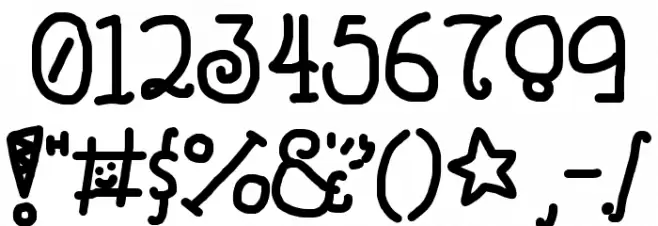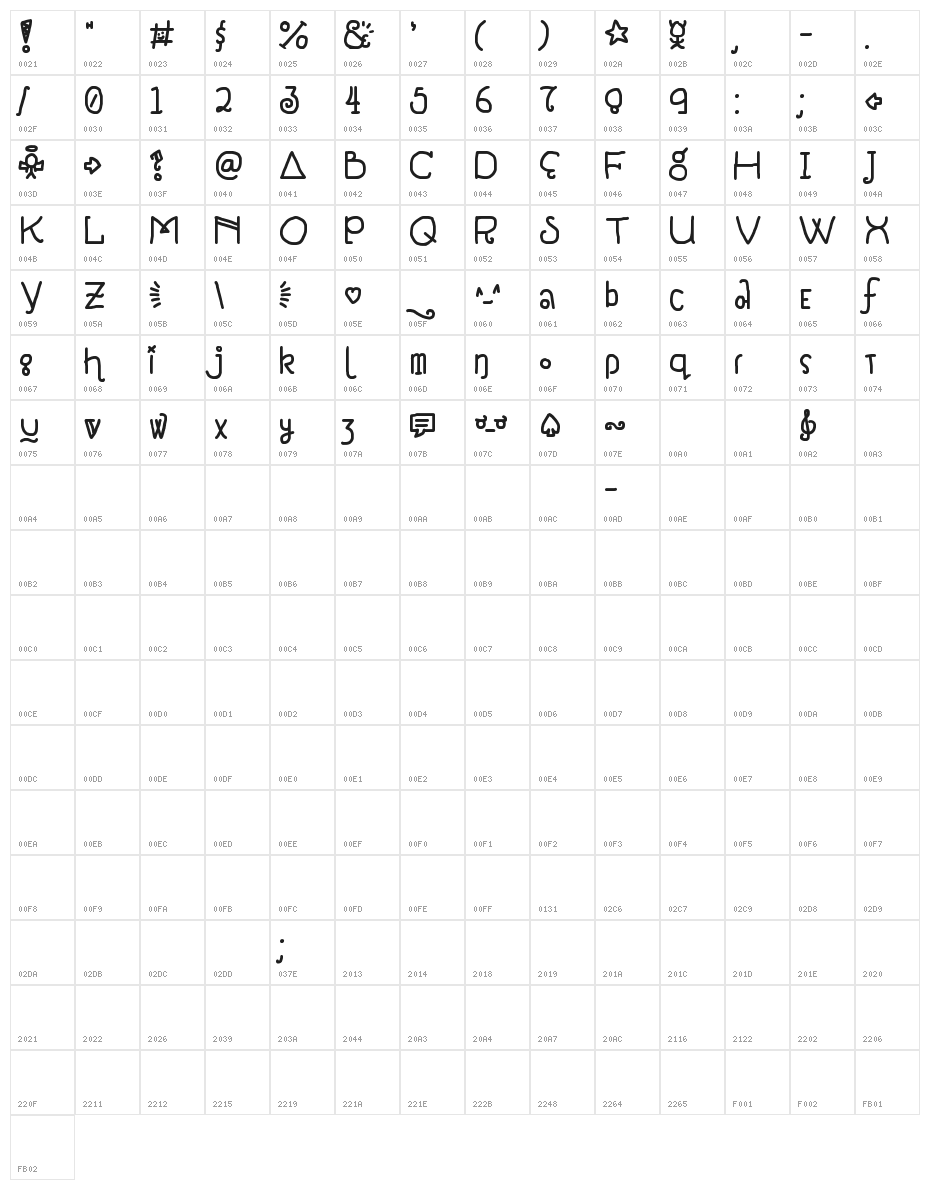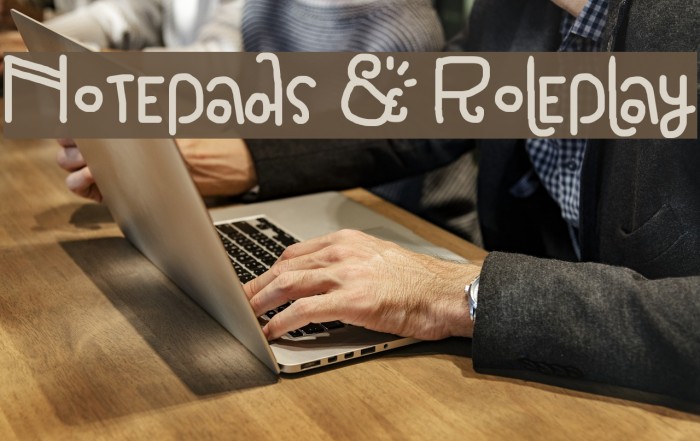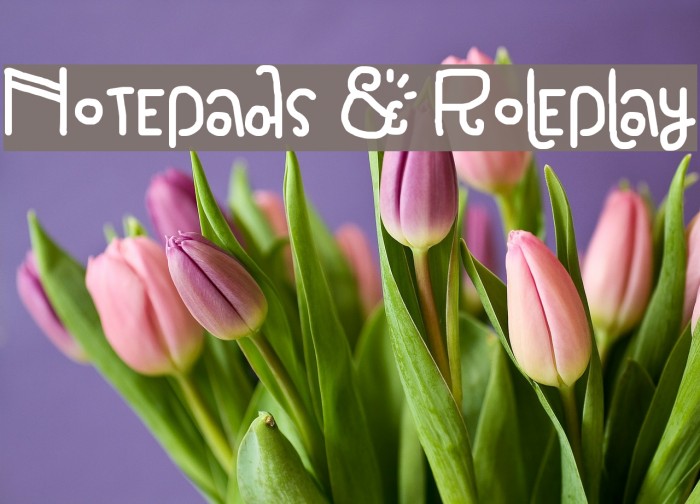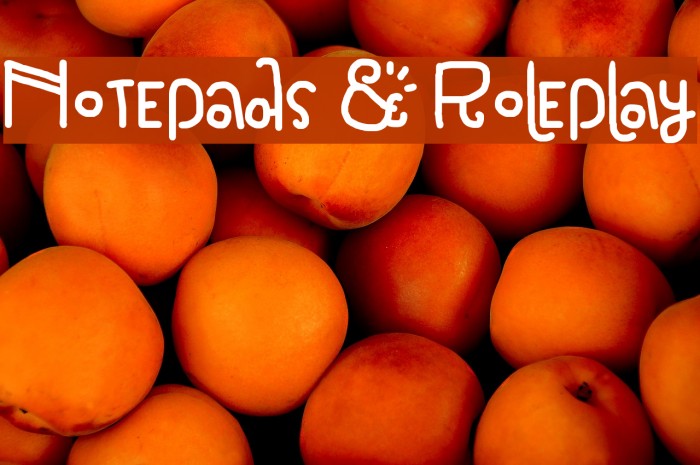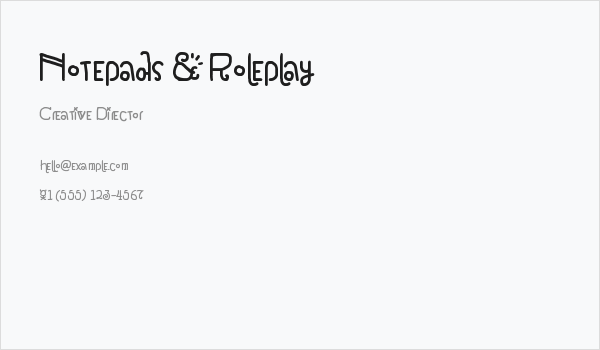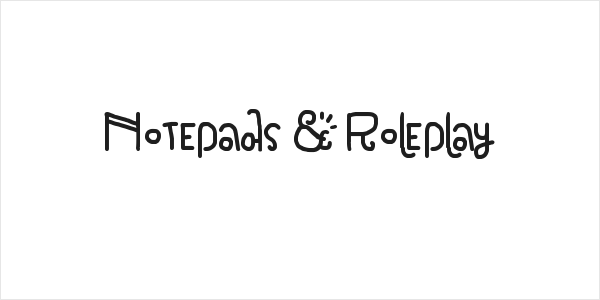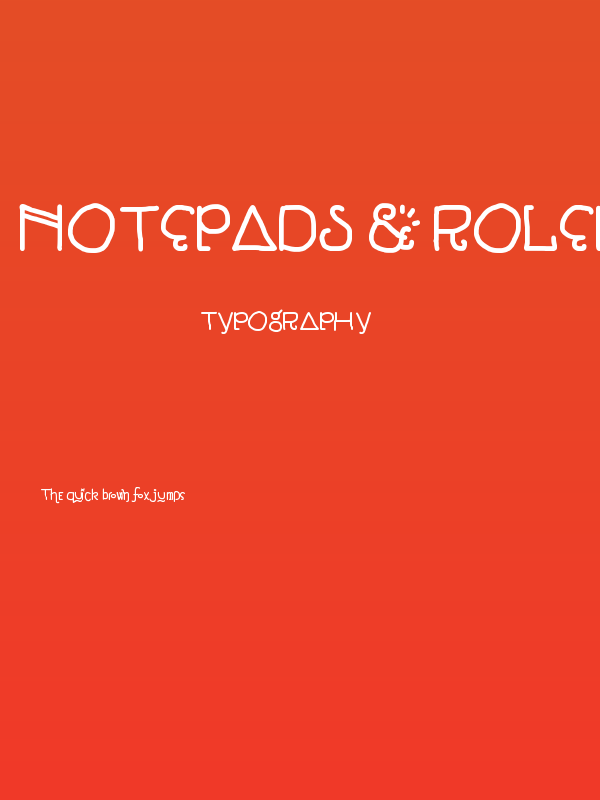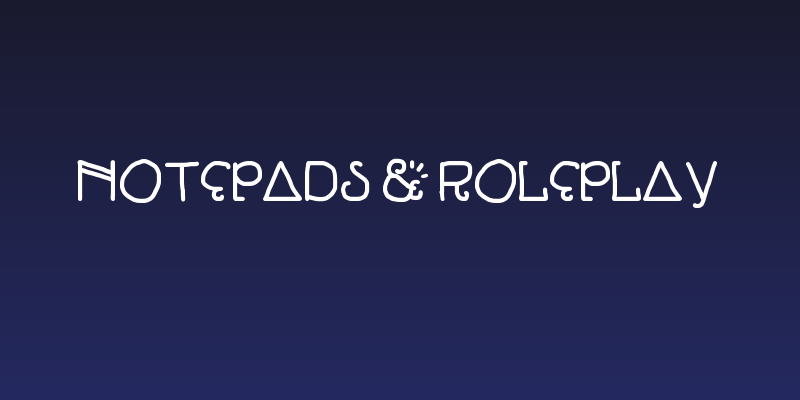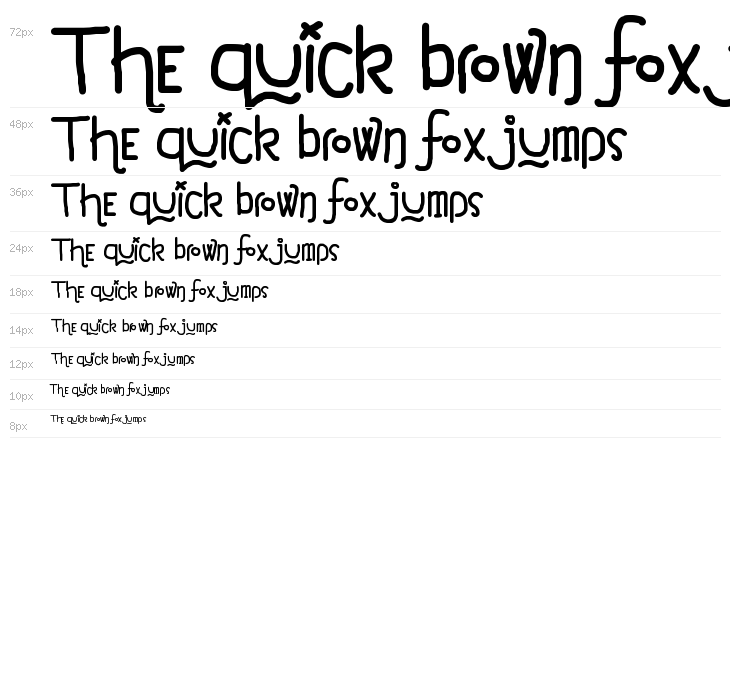
Notepads & Roleplay Font
Notepads & Roleplay Description
This font features a playful and whimsical design with a hand-drawn aesthetic. The characters are bold and rounded, giving them a friendly and approachable feel. The uppercase and lowercase letters maintain a consistent style, with unique flourishes and loops that add personality. Numbers and special characters are equally expressive, making this font suitable for creative projects. The overall appearance is casual and artistic, perfect for capturing attention in a fun and engaging way.